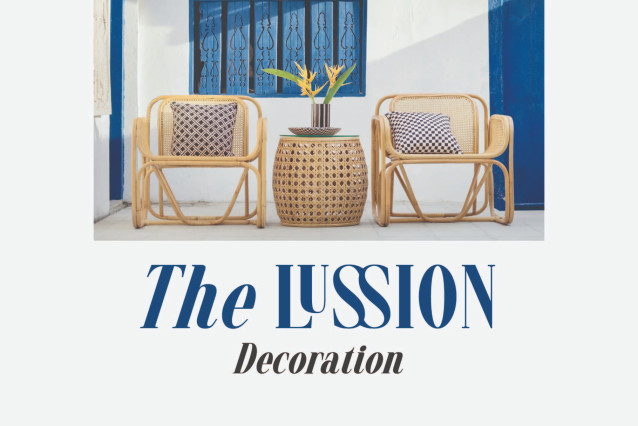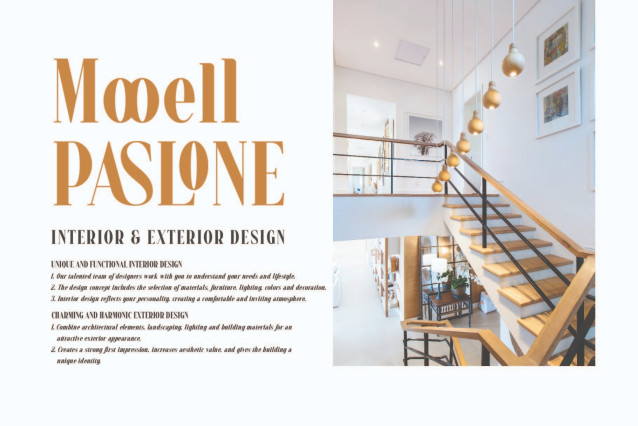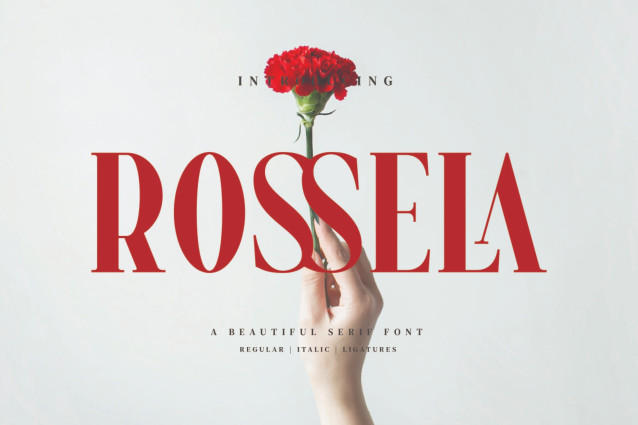
Rossela – Beautiful Serif Font
Rossela Stylish Ligature Typeface, inspired by the famous minimalist logo perfect for the purposes of designing templates, brochures, videos, advertising branding, logos and more.
– Ligatures